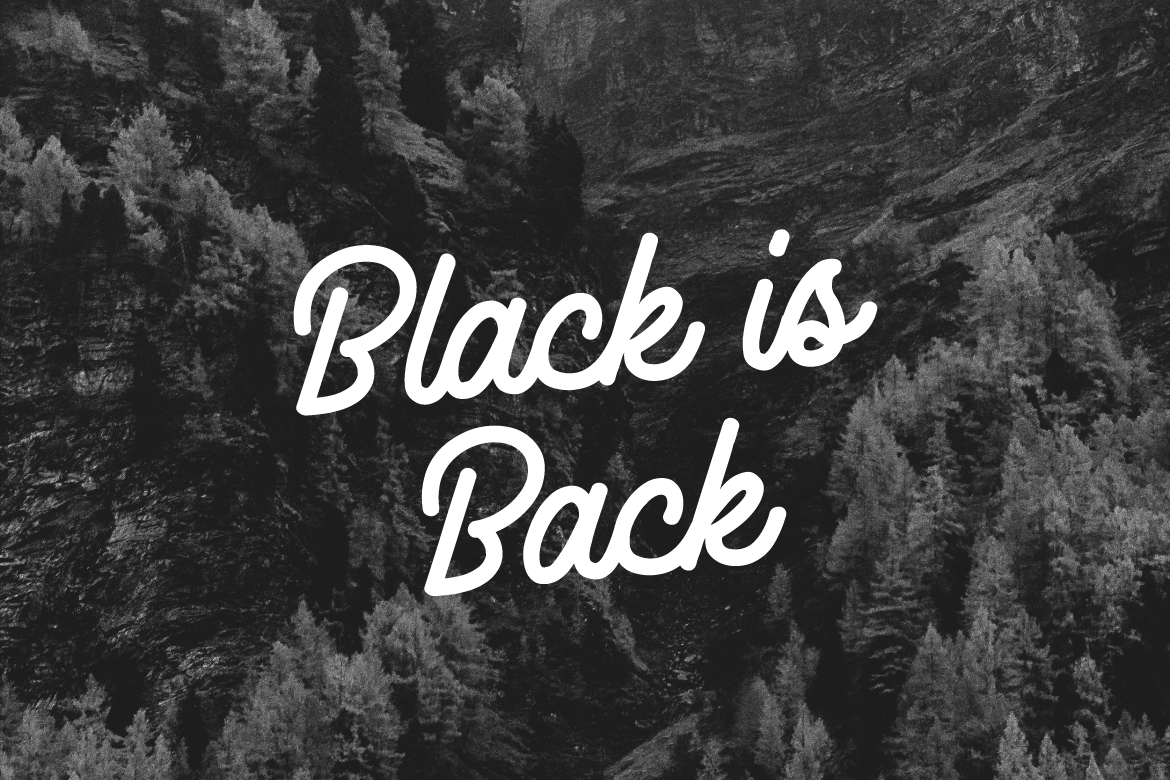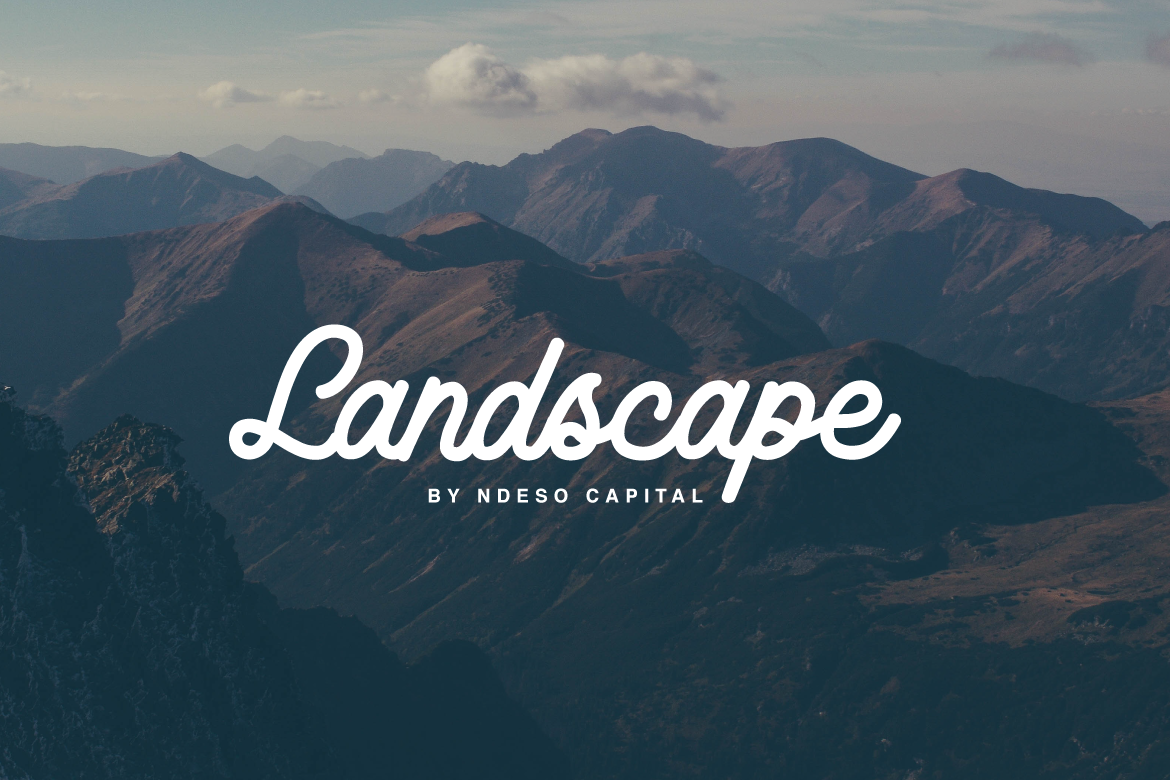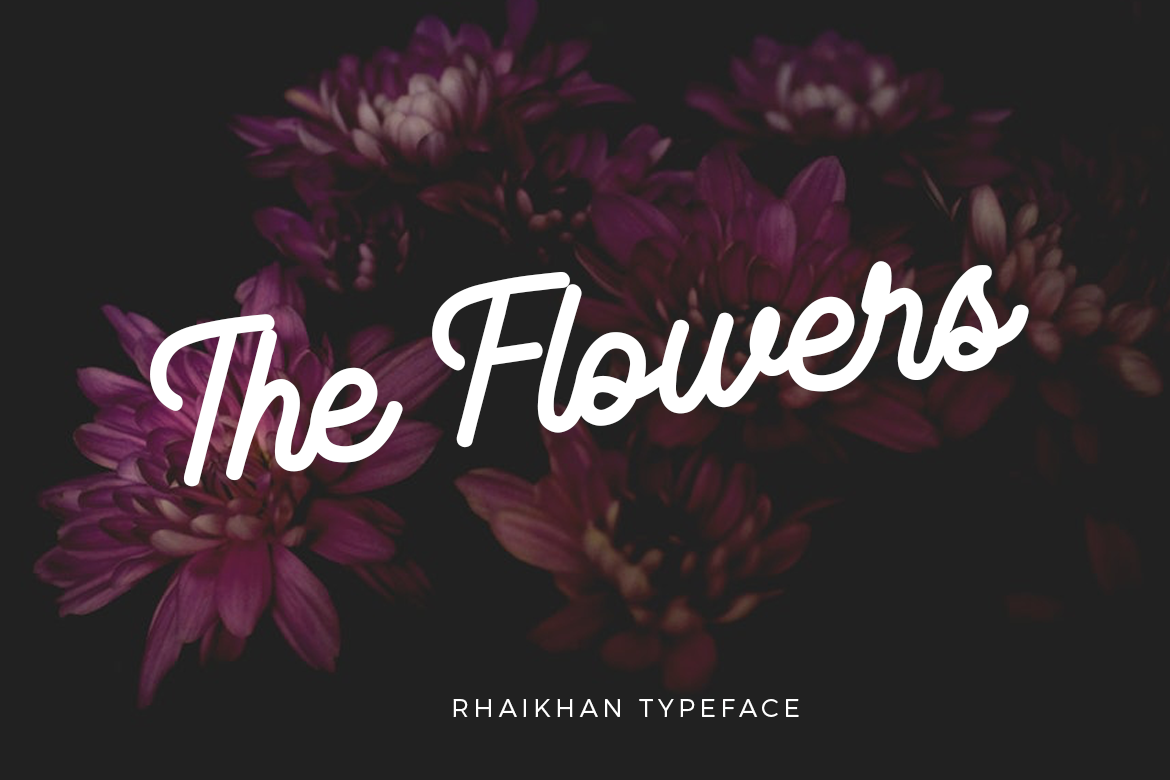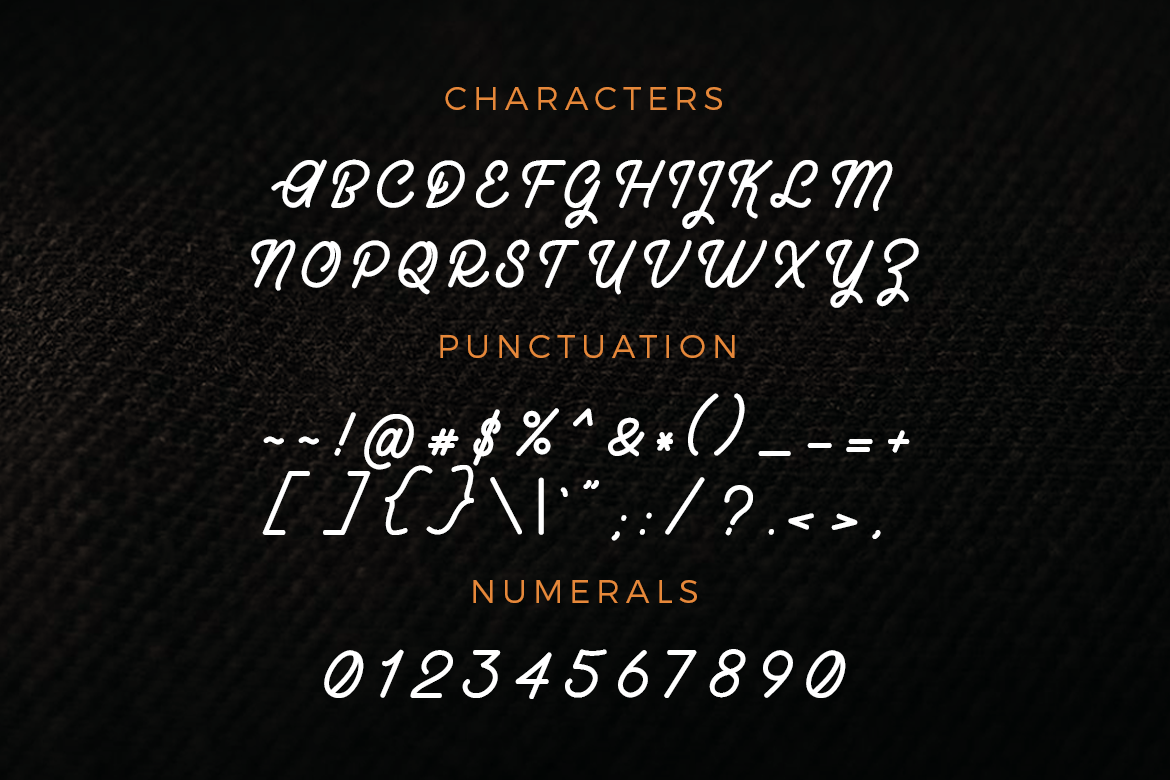
Rhaikane Font
Rhaikane is a gorgeous vintage monoline font. This font is versatile and can be used for both vintage and modern designs, and is a completely captivating and eye catching typeset.